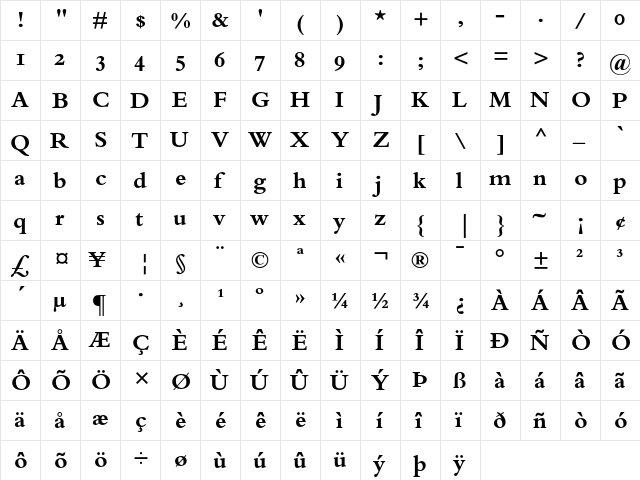
Bembo Bold Oldstyle Figures Font Preview
Bembo Bold Oldstyle Figures
Design Context for Bembo Typeface
Bembo carries the refined structure of traditional serif typography, with bracketed terminals and considered proportions that communicate credibility and craft. The heavy weight commands attention and anchors typographic hierarchies.
Pro Tip: Use Bembo for editorial body copy and considered headline work. Pair with a neutral sans for UI elements or captions to create a classic hierarchy.